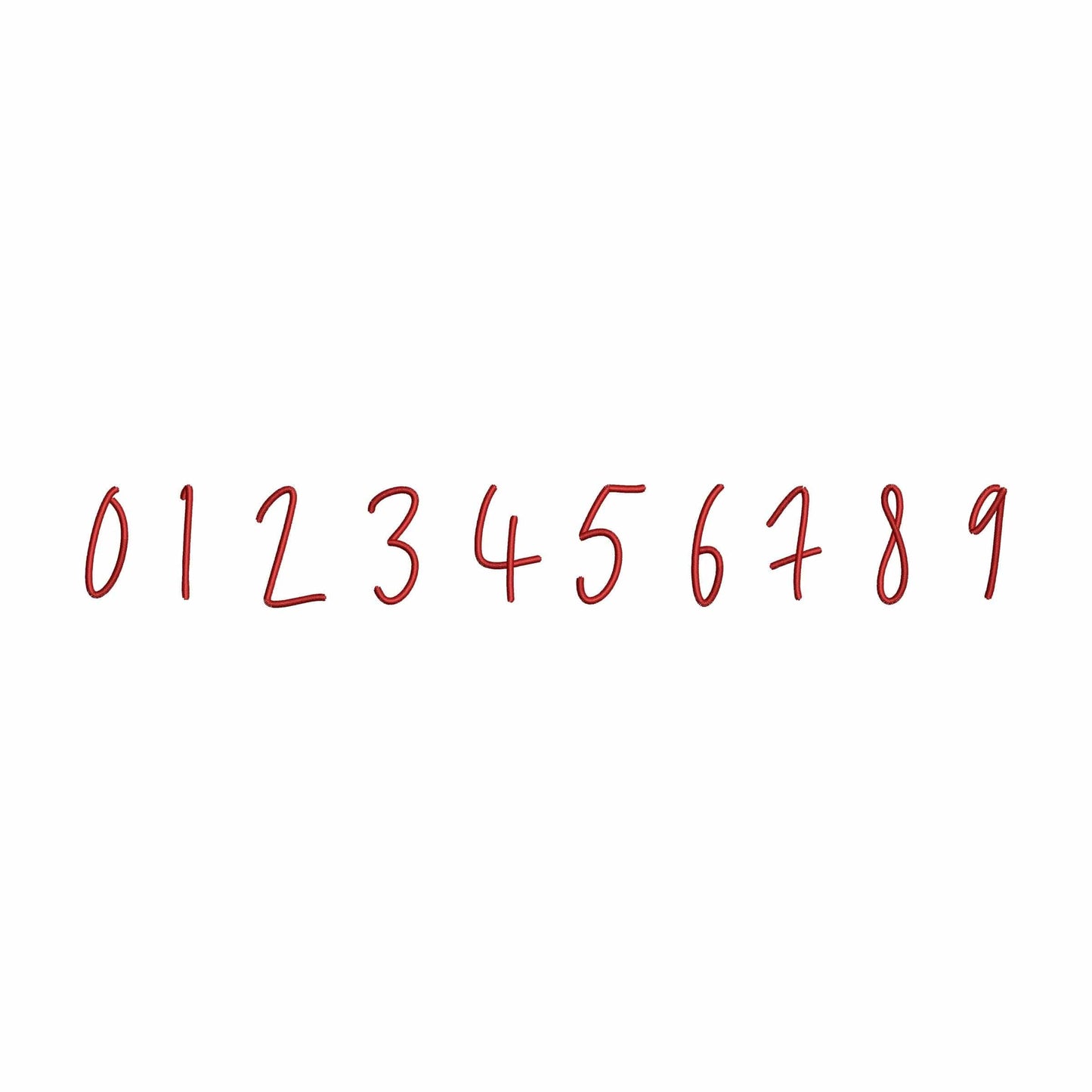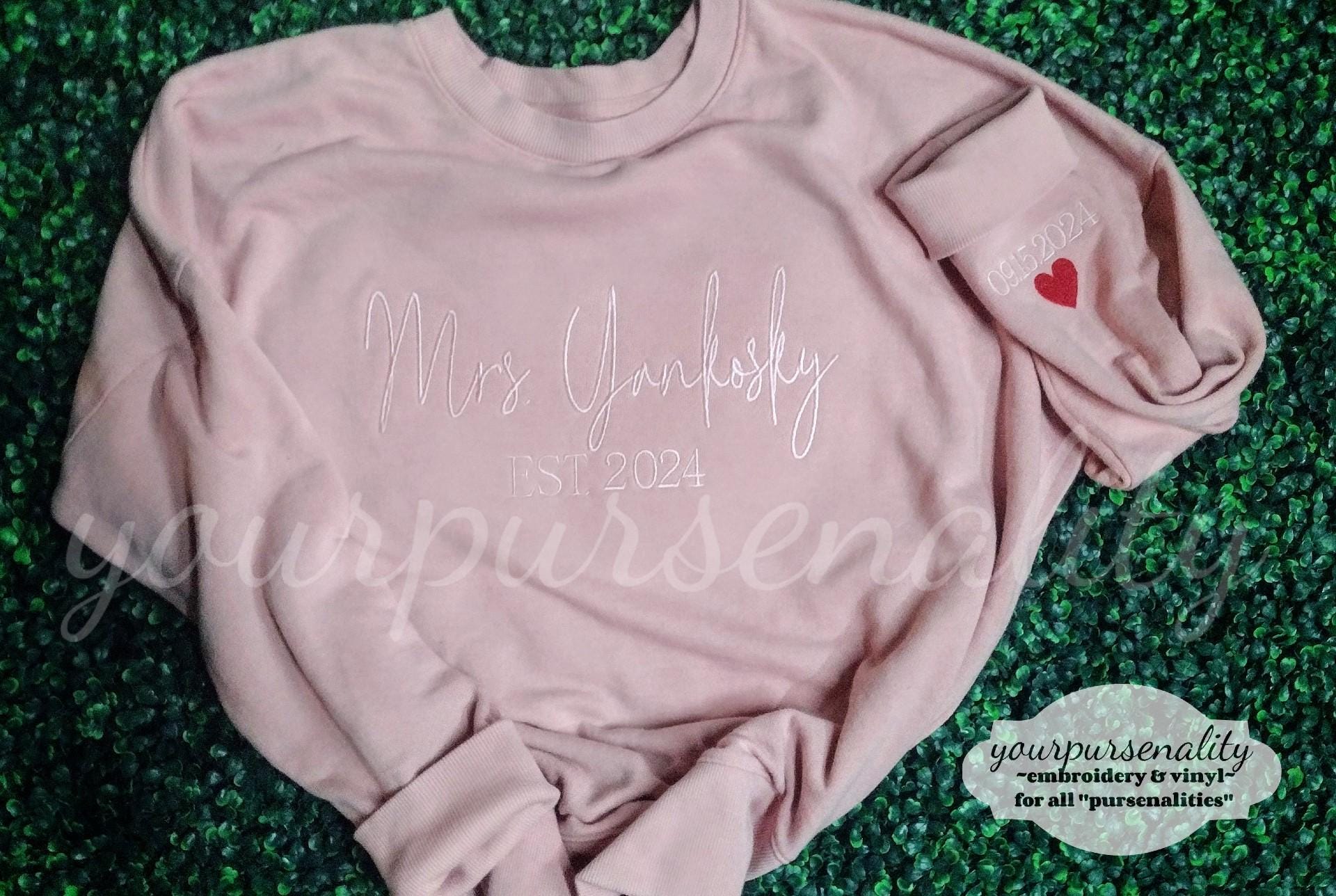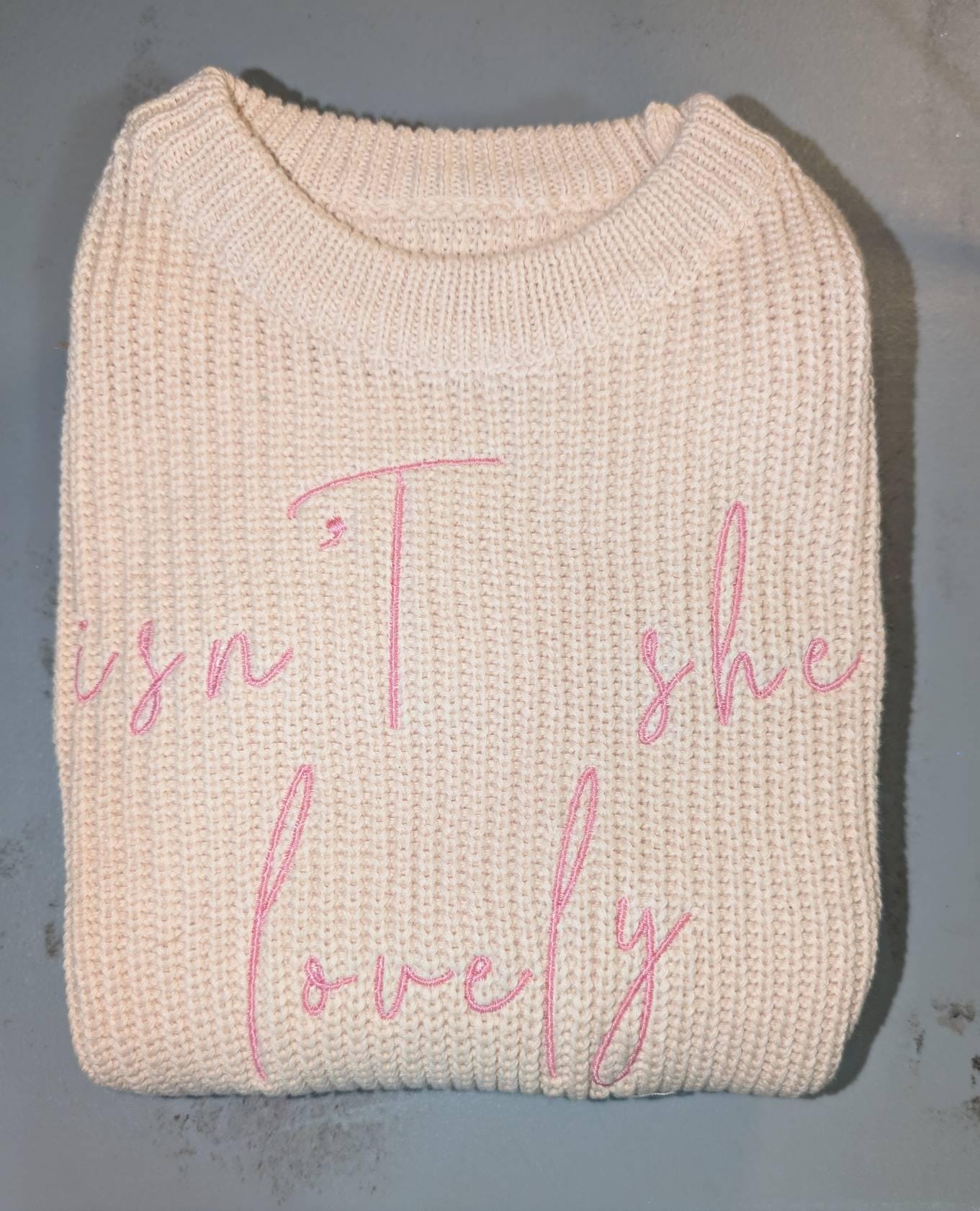
Celeste - Script embroidery font
• Included: A-Z (uppercase), a-z(lowercase), 0-9 (numbers)
This script machine embroidery font works well for signature-style names, monograms, towels, gifts, and elegant custom embroidery.
A useful digital download for makers who want thin handwritten lettering for polished feminine projects.